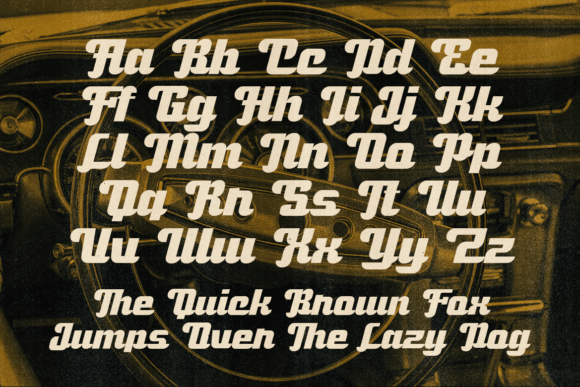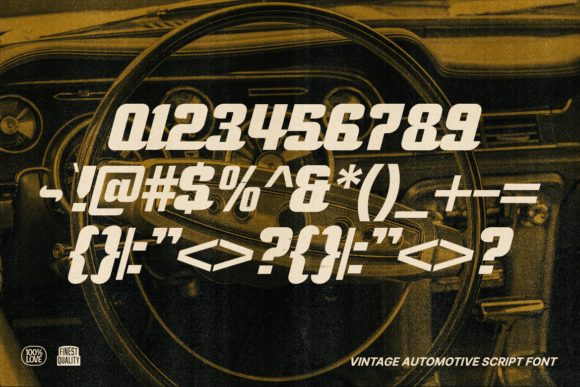
Introduction to Hundell Font
Hundell is inspired by the vintage and classic car emblem.
The glory of futuristic script typography that invaded so many industries Perfectly fit for a logo, branding, signage, decor, books, cover, badges and emblems, clothing, apparel, merchandise, movie title, serials, and many more.
Key Features of Hundell Font